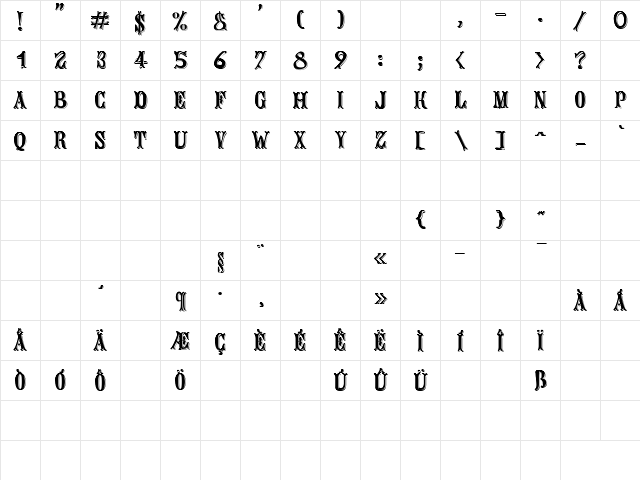
Complete Bujardet Shadow Regular glyph index. Displaying only characters natively supported by Bujardet Shadow Regular font.
Bujardet Shadow is built around its visual character rather than neutral utility - its distinctive forms are designed to make an impression at display sizes.
Font Pairing: Pair with a clean neutral sans-serif for body copy to let Bujardet Shadow's character lead without overwhelming the composition.
Pro Tip: Use Bujardet Shadow exclusively at display sizes - it was designed to be seen, not read at length. Let a neutral companion handle body copy.